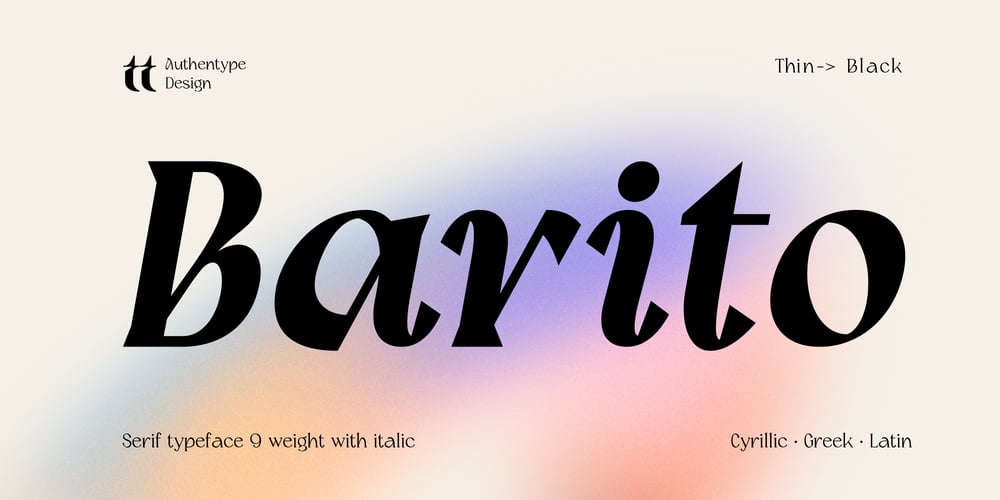
Barito Font Family was designed by Ekayasa and published by Authentype. Barito contains 18 styles and family package options. The Barito Serif 9 font is full of cursive typefaces with sharp, bold lines that create an optical illusion that appears to intimidate the reader. Barito serif font comes with many languages like Cyrillic • Greek • Latin and is perfect for designing books, magazines, titles for online advertising media websites and much more. The barito serif font not only comes with 9 weights, but is also accompanied by an italic for complement and confirmation.